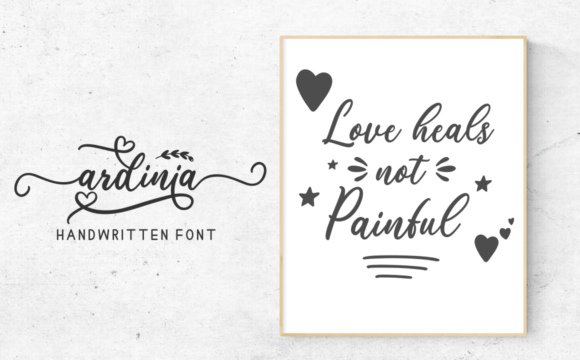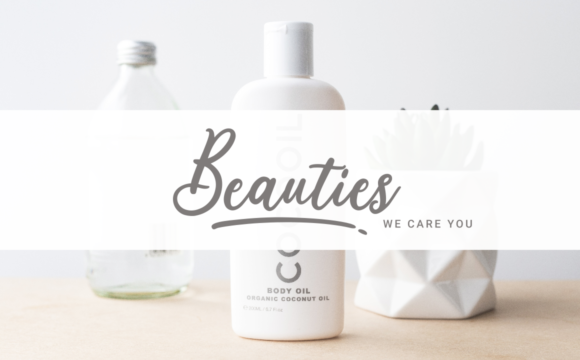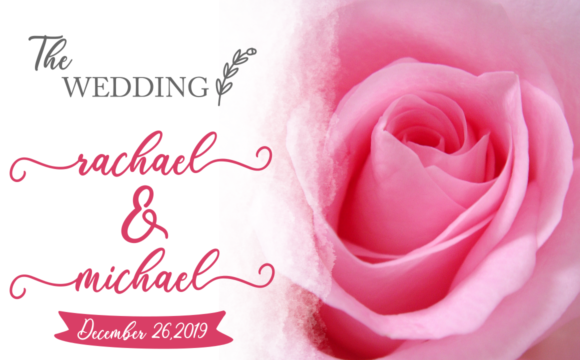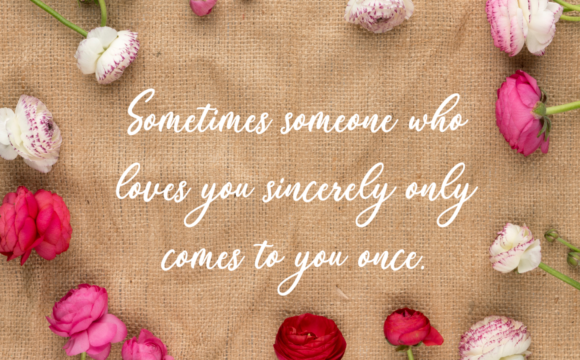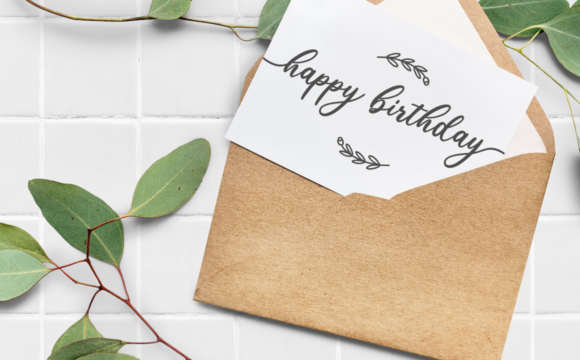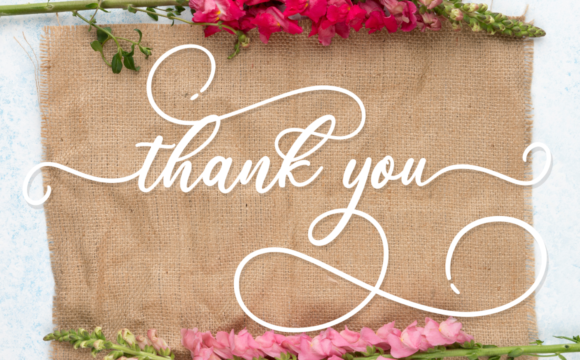
The Designer’s Delight: Ardinia Font
I’ll never forget the struggle I faced while working on a branding project for a luxury fashion label. My client wanted a font that exuded elegance, sophistication, and a touch of modernity. I scoured the internet, tried countless fonts, but nothing seemed to fit the bill. That was until I stumbled upon Ardinia Font. ✨
Ardinia is a modern and elegant handwritten font that has become a staple in my design toolkit. Its classy style and versatility have made it a go-to choice for a wide range of projects, from fashion branding to wedding invitations. In this article, I’ll share my experience with Ardinia, its features, and how to make the most of it in various design platforms.
• ✨ Elegant and modern handwritten style
• 💫 Beautifully crafted OpenType features, including ligatures and stylistic alternates
• 🎨 Extensive glyph library, perfect for creative projects
While Ardinia is an exceptional font, there are a few minor quirks to be aware of: 🤔
• ⚠️ Some users may find the font too slender for certain design applications
• ⚠️ Limited availability of condensed or italic styles
Ardinia was designed with the intention of capturing the essence of modern elegance. Its creator drew inspiration from the world’s top fashion designers, aiming to create a font that would be at home on the runways of Paris and Milan. 💃
The design process involved countless hours of refinement, ensuring that every letterform, every curve, and every stroke was perfect. The result is a font that exudes sophistication, luxury, and refinement. 💫
Q: What is Ardinia Font?
A: Ardinia Font is a modern and elegant handwritten font, perfect for creative projects, branding, and design applications.
Q: Is Ardinia suitable for body text?
A: While Ardinia is highly legible, it’s best suited for headlines, titles, and short paragraphs. For longer body text, consider pairing it with a complementary font.